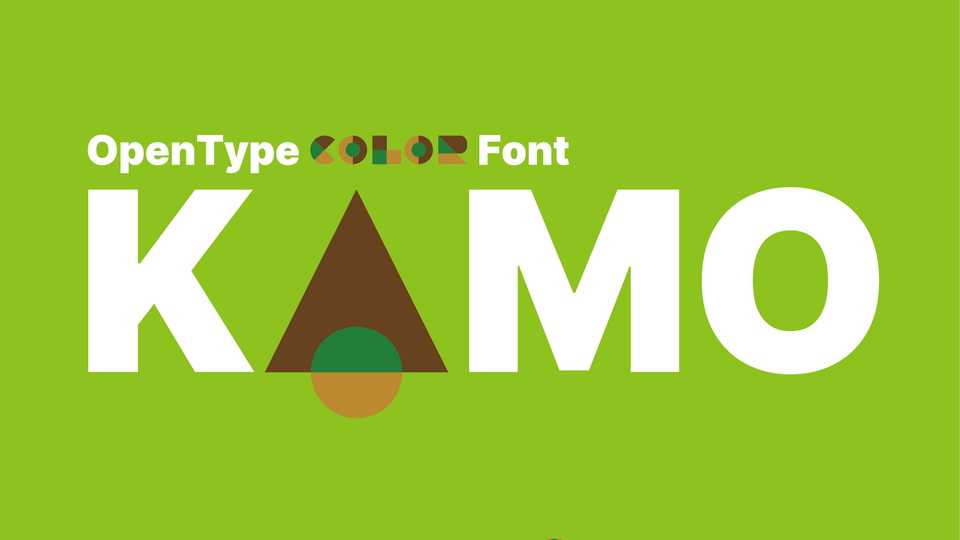
Download Kamo font, an OpenType color typeface based on simple geometric shapes. kamo font is suitable for display, logo design, posters, or branding design.
Designer: Chijiiwa